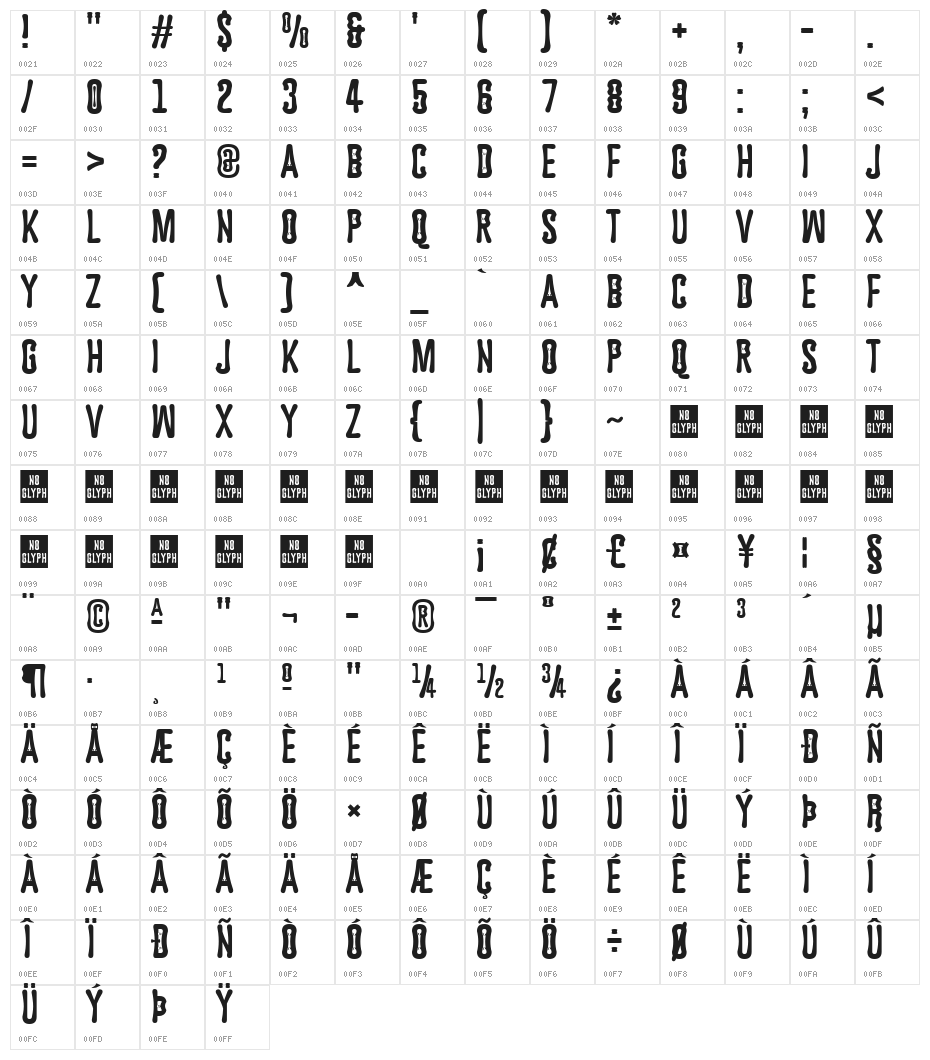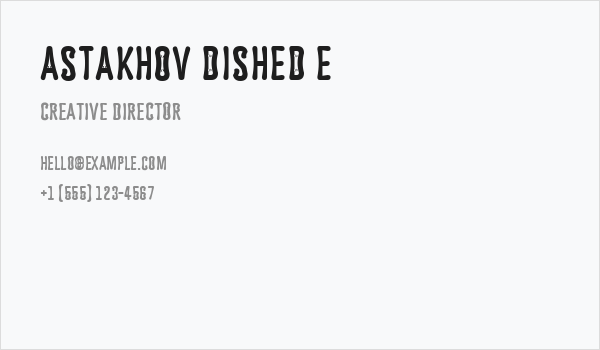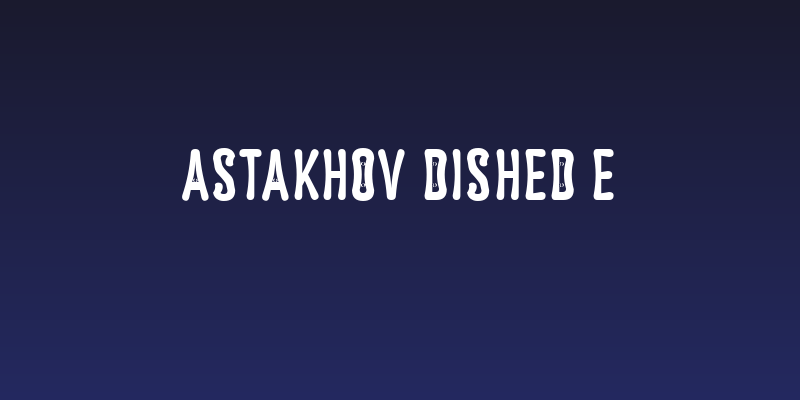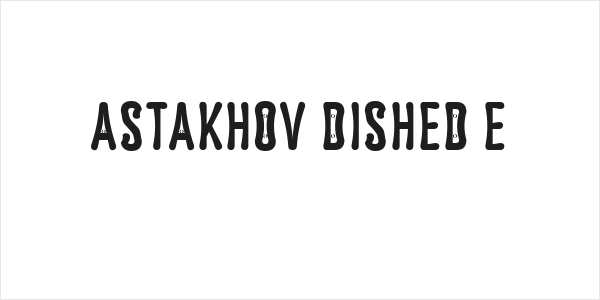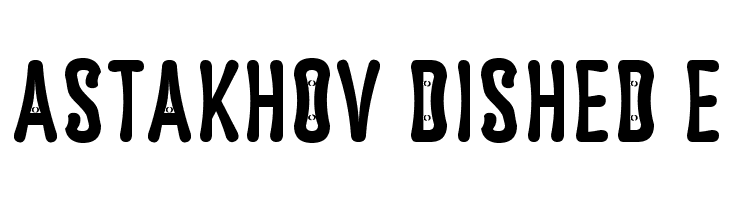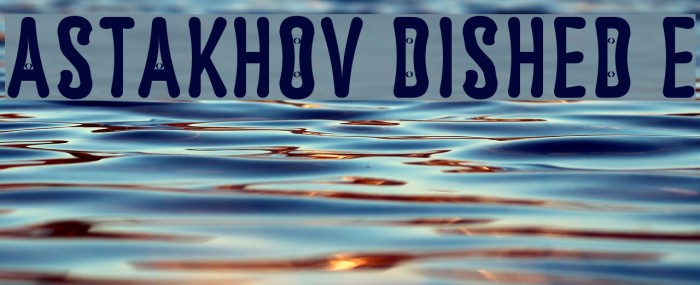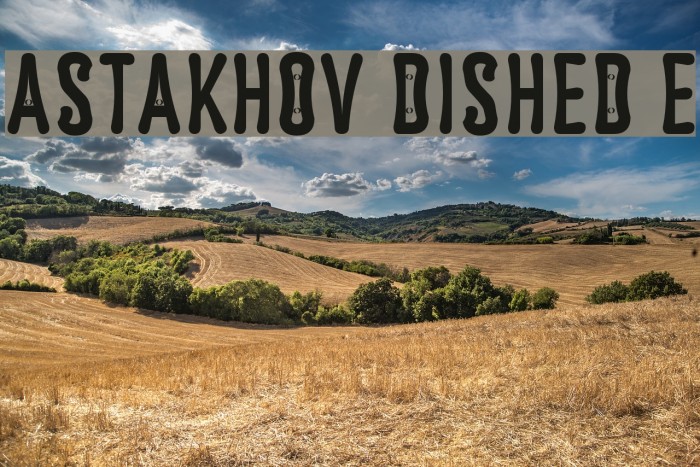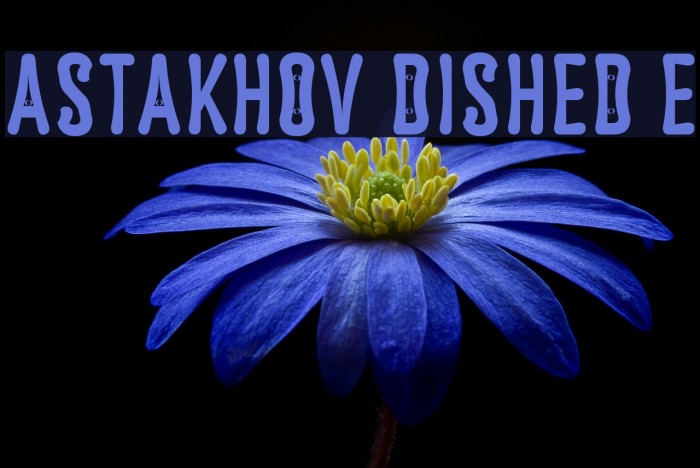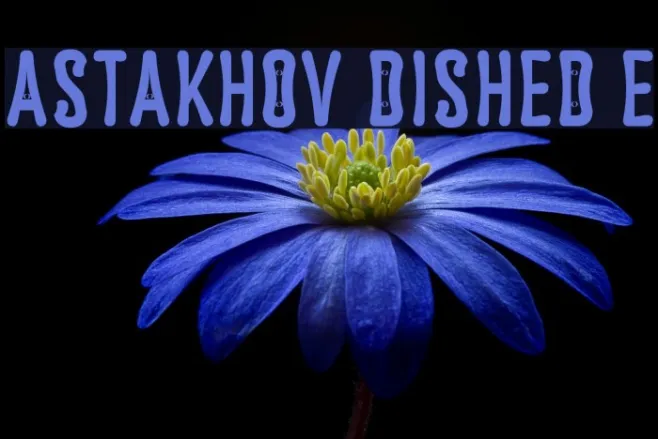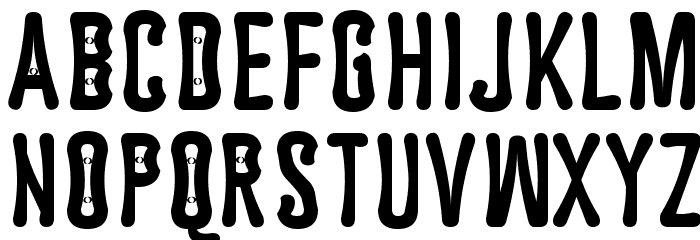
Astakhov Dished E Font
Astakhov Dished E Description
This font features a unique and playful design with a bold, eye-catching appearance. The characters are characterized by their thick, rounded strokes and distinctive cut-out shapes within each letter, giving them a quirky and dynamic look. The uppercase and lowercase letters maintain a consistent style, with the numbers and special characters following suit. This font's playful nature makes it stand out, making it ideal for creative and informal projects. The overall design is both modern and decorative, with a touch of whimsy that adds personality to any text.
| Overall Style | Modern, Decorative |
| Proposed Projects | Ideal for posters, children's books, playful branding, and creative design projects. |